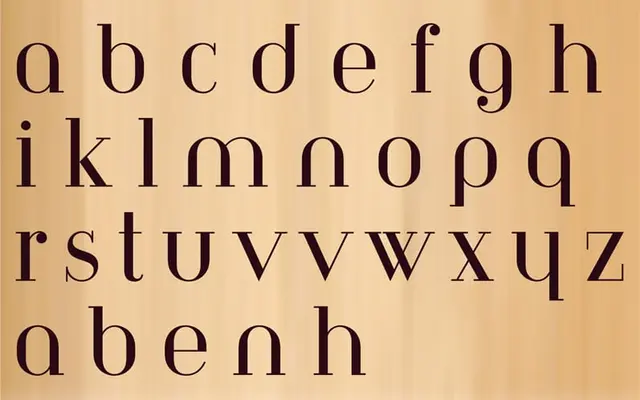
Architype Bayer-Type
The Foundry Types · Herbert Bayer · 1931
A revival of Herbert Bayer's 1931 geometrically constructed serif alphabet, part of The Foundry Types' Architype Universal collection of interwar modernist typefaces.
Drawn from Herbert Bayer's 1931 serifed universal alphabet, this is a geometrically structured type built on a strict grid, extending Bayer's earlier 1925 sans-serif single alphabet into a serif form. Part of the Architype Universal collection, which revives the single-alphabet, universal-theory work of European Bauhaus and modernist designers from the interwar period. The limited character set reflects the ideological constraints of the original universal alphabet theory.
Based on Herbert Bayer's 1931 grid-based, geometrically constructed serifed alphabet, it sits within the geometric serif category despite its avant-garde, Bauhaus origins. The structure is rigorously grid-based, distinguishing it from traditional serif classifications.